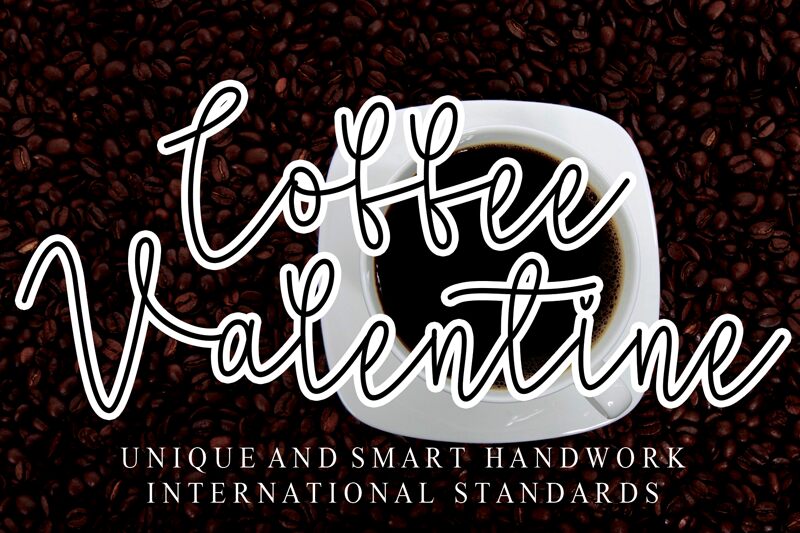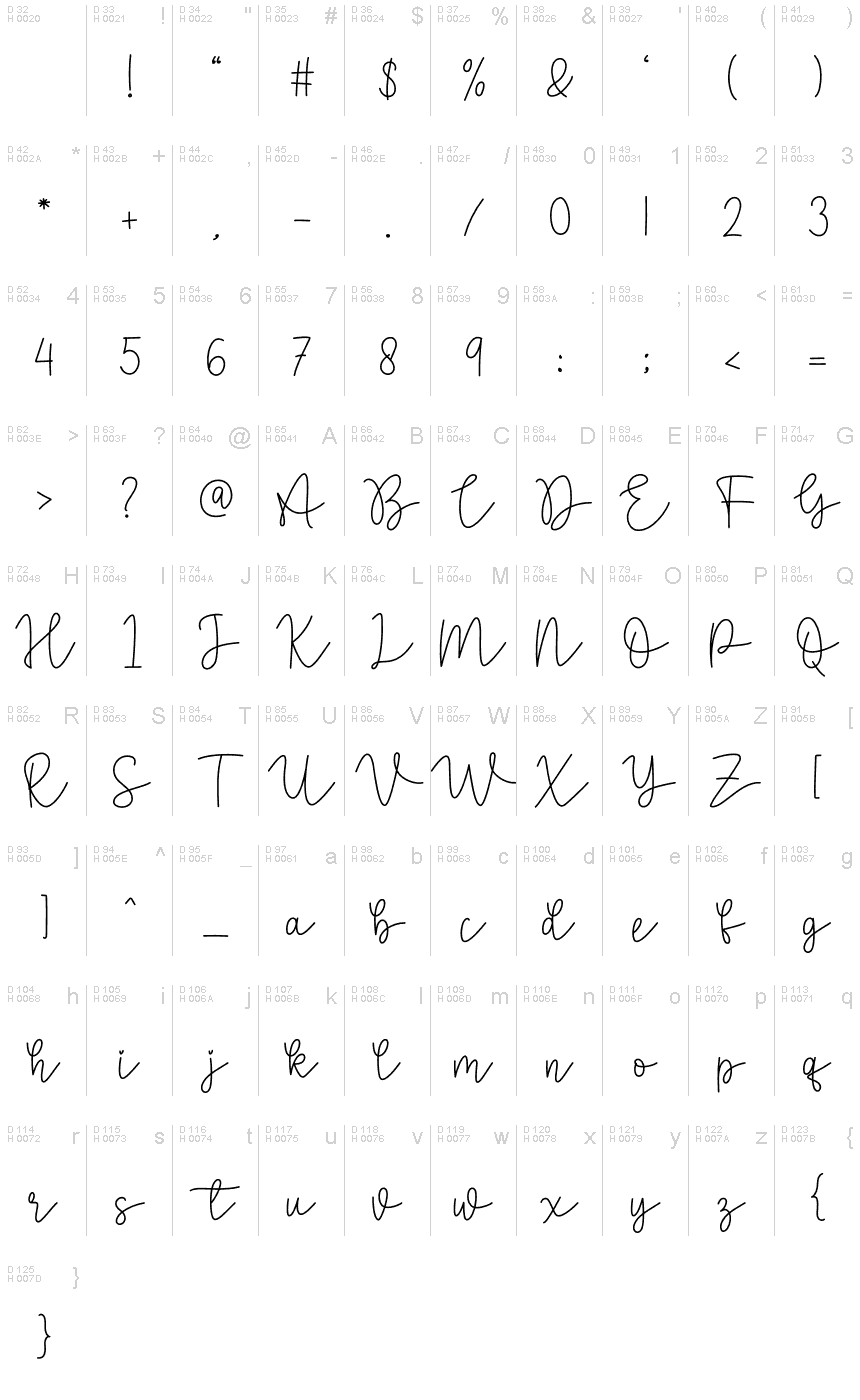
Coffe Valentine
Coffe Valentine font is a unique handwritten font designed by Gado Gado.
the latest style letters are perfect for wall displays, wedding invitations, social media post logos,
advertisements, product packaging, product designs, labels, photography, watermarks, invitations, stationery,
and any project that requires taste handwriting.